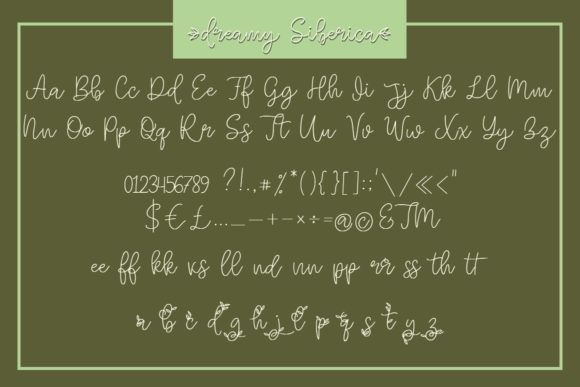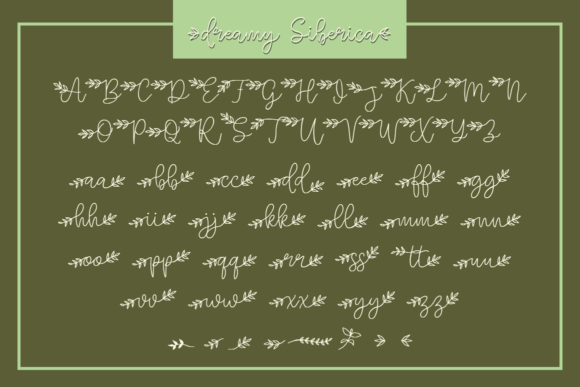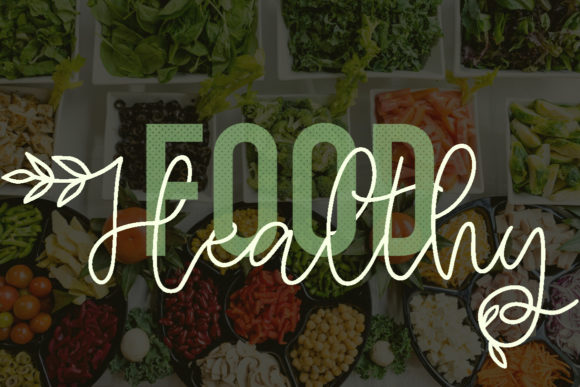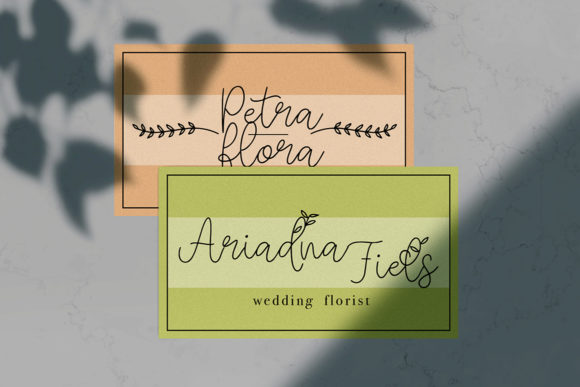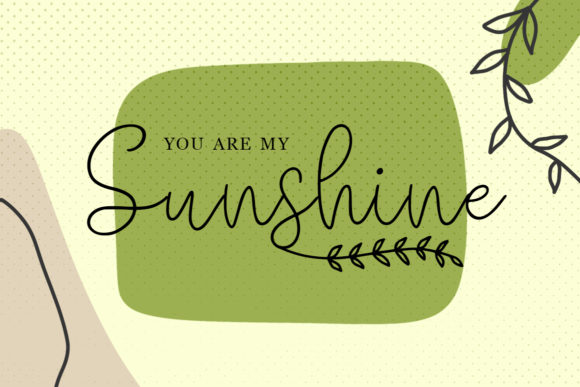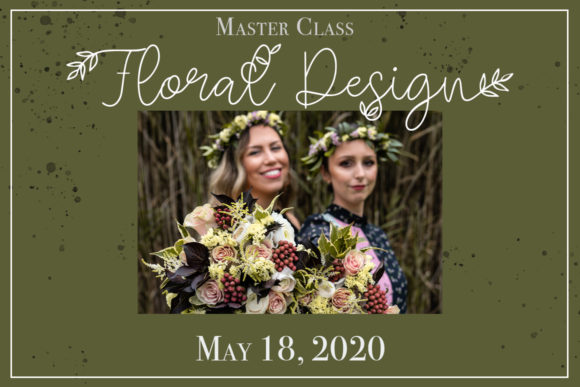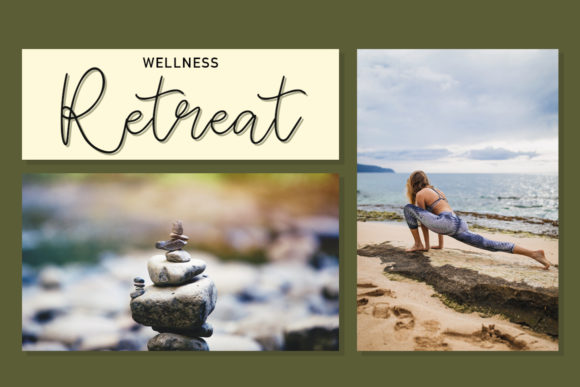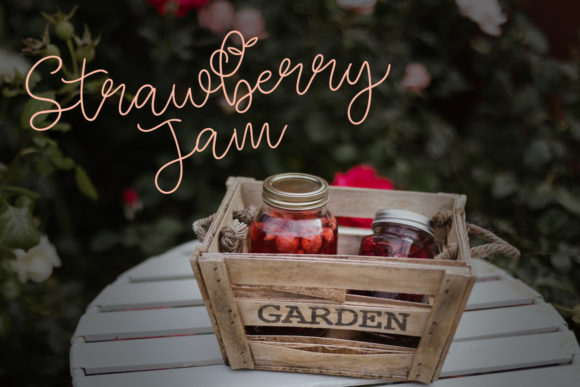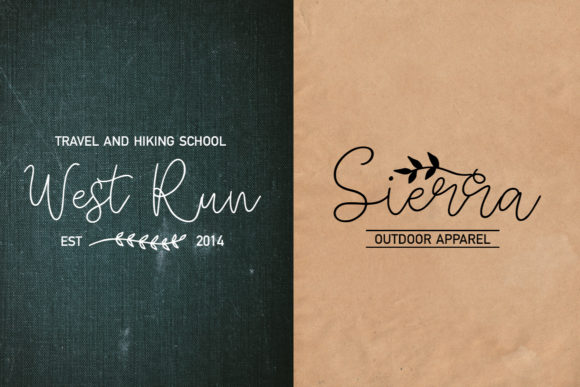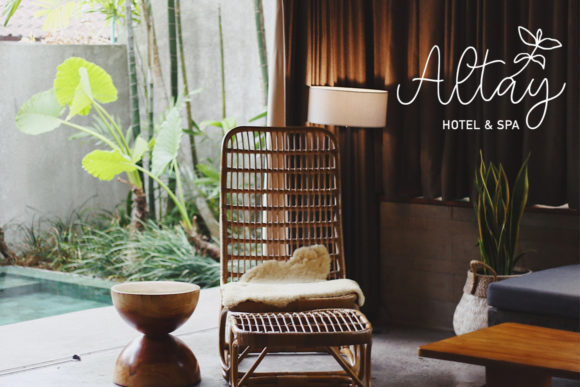
Dreamy Siberica Font
About Dreamy Siberica Font
Dreamy Siberica feels equally charming and elegant. It looks stunning on wedding invitations, thank you cards, quotes, greeting cards, logos, business cards and every other design which needs a handwritten touch.